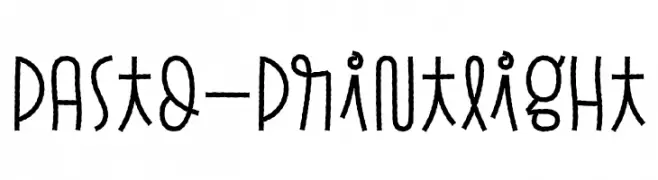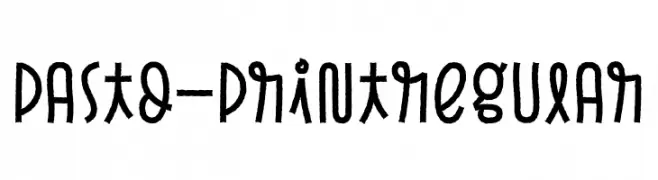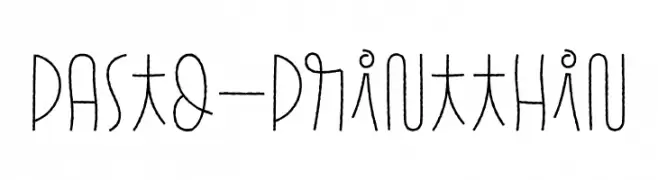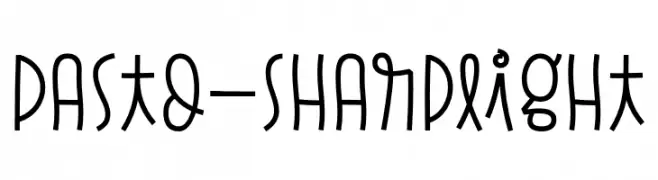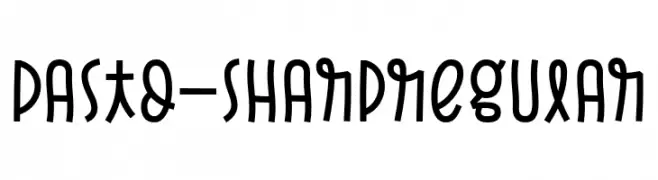
A playful and quirky font with unique, unconventional letterforms and a bold presence.
A playful, hand-drawn font with quirky, irregular letterforms.
A playful, geometric font with elongated characters and a modern style.
A playful, hand-drawn font with tall, narrow characters and whimsical details.
A bold, playful font with a hand-drawn, artistic style.
A playful, hand-drawn font with elongated, thin strokes and a whimsical style.